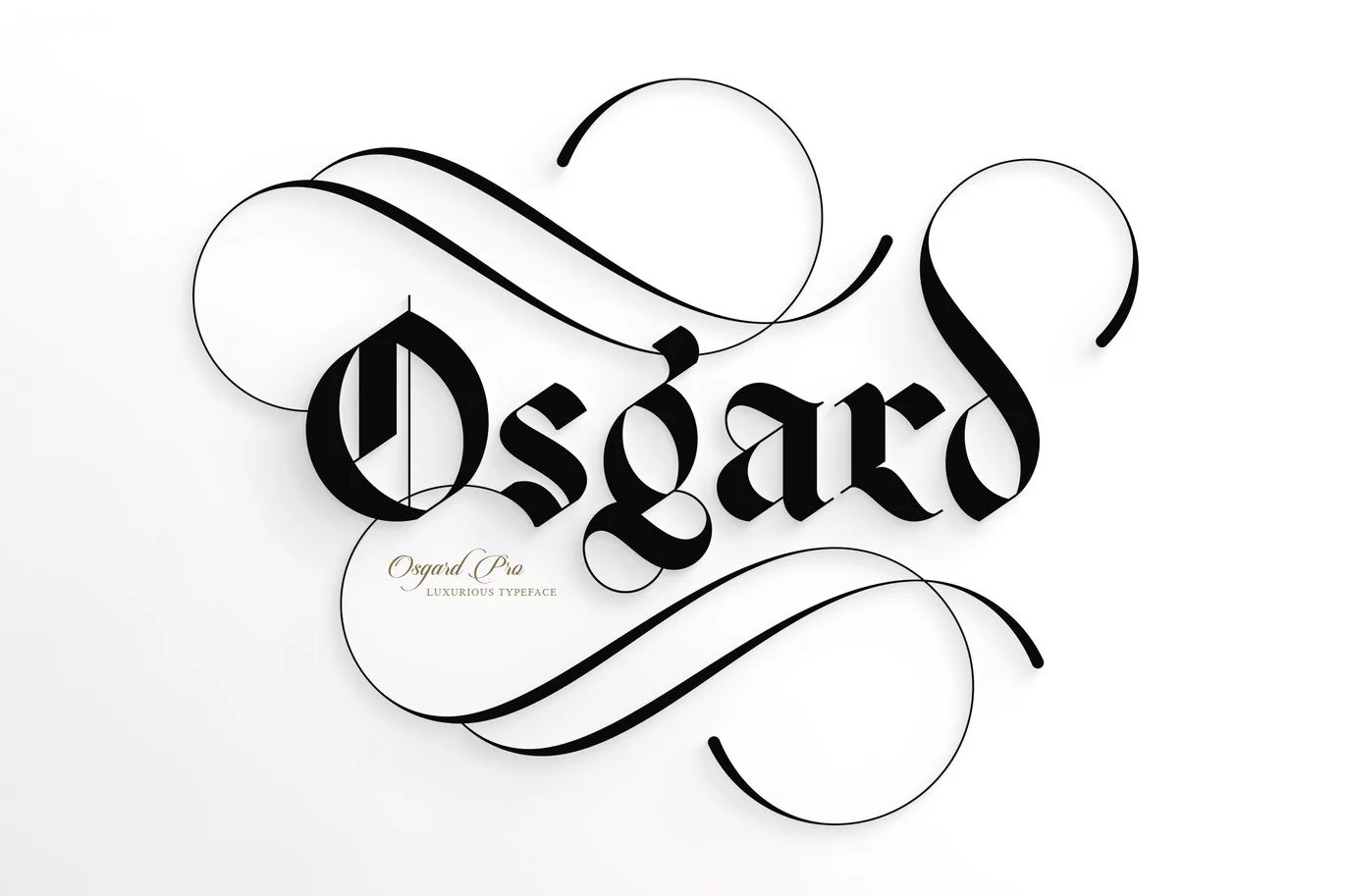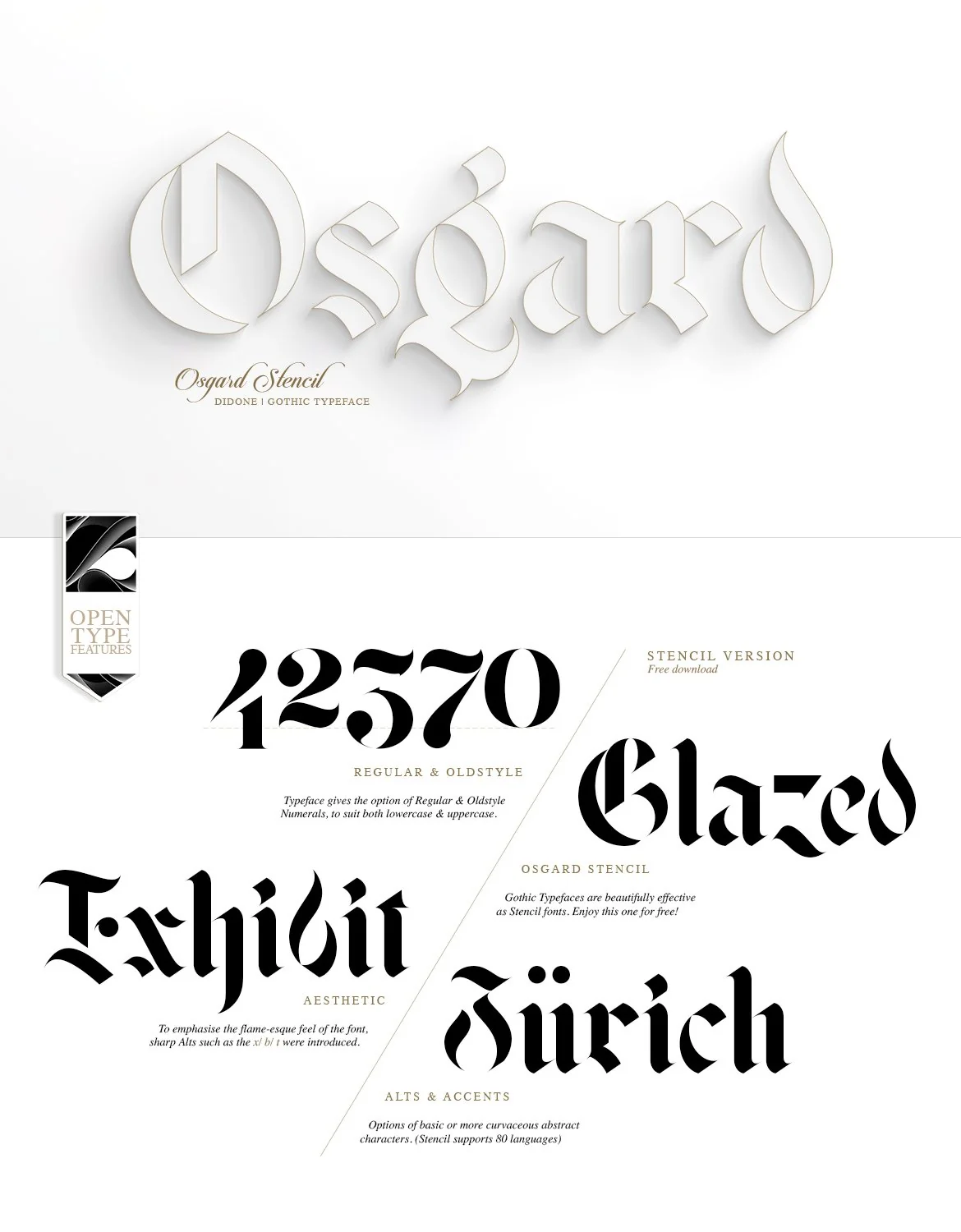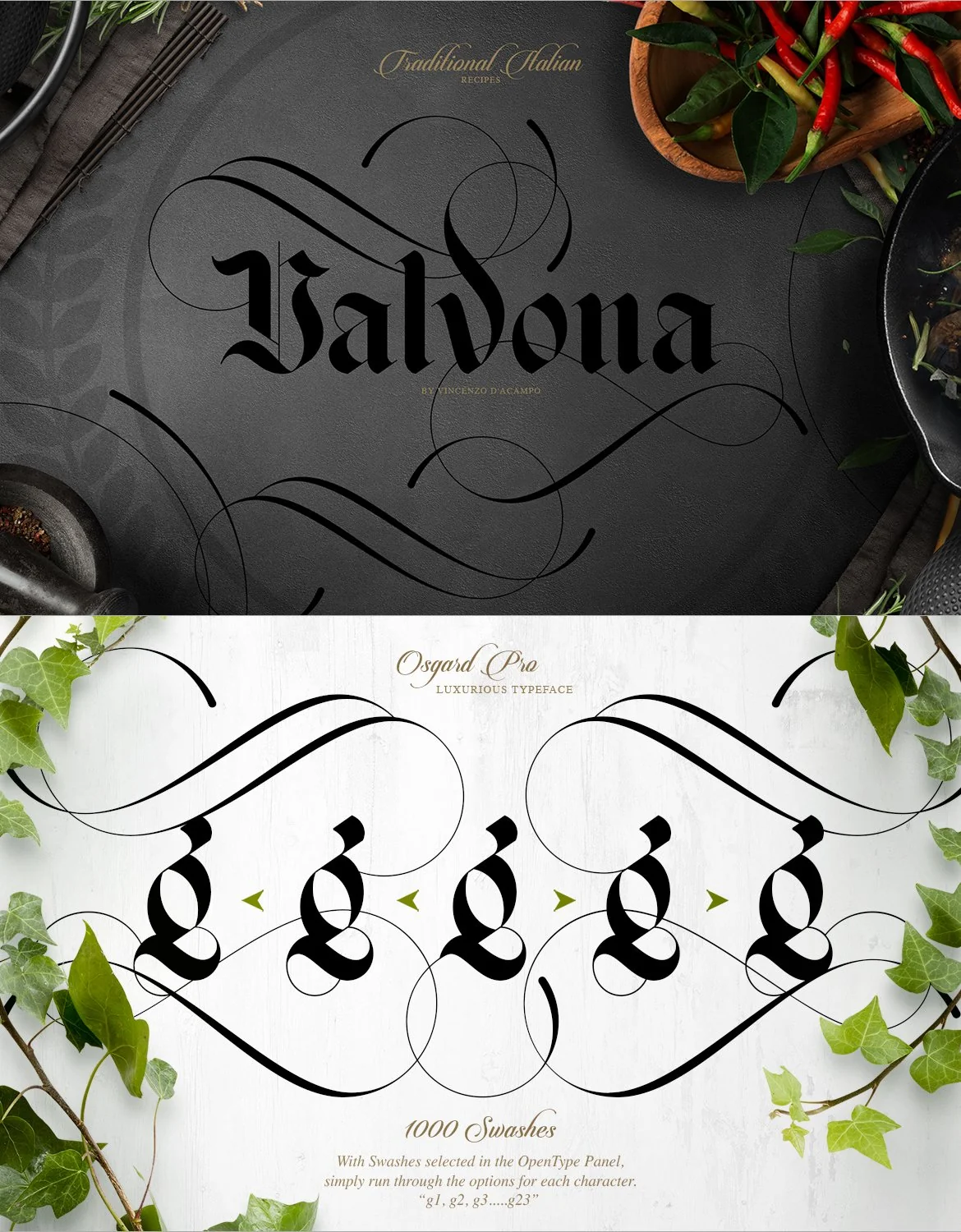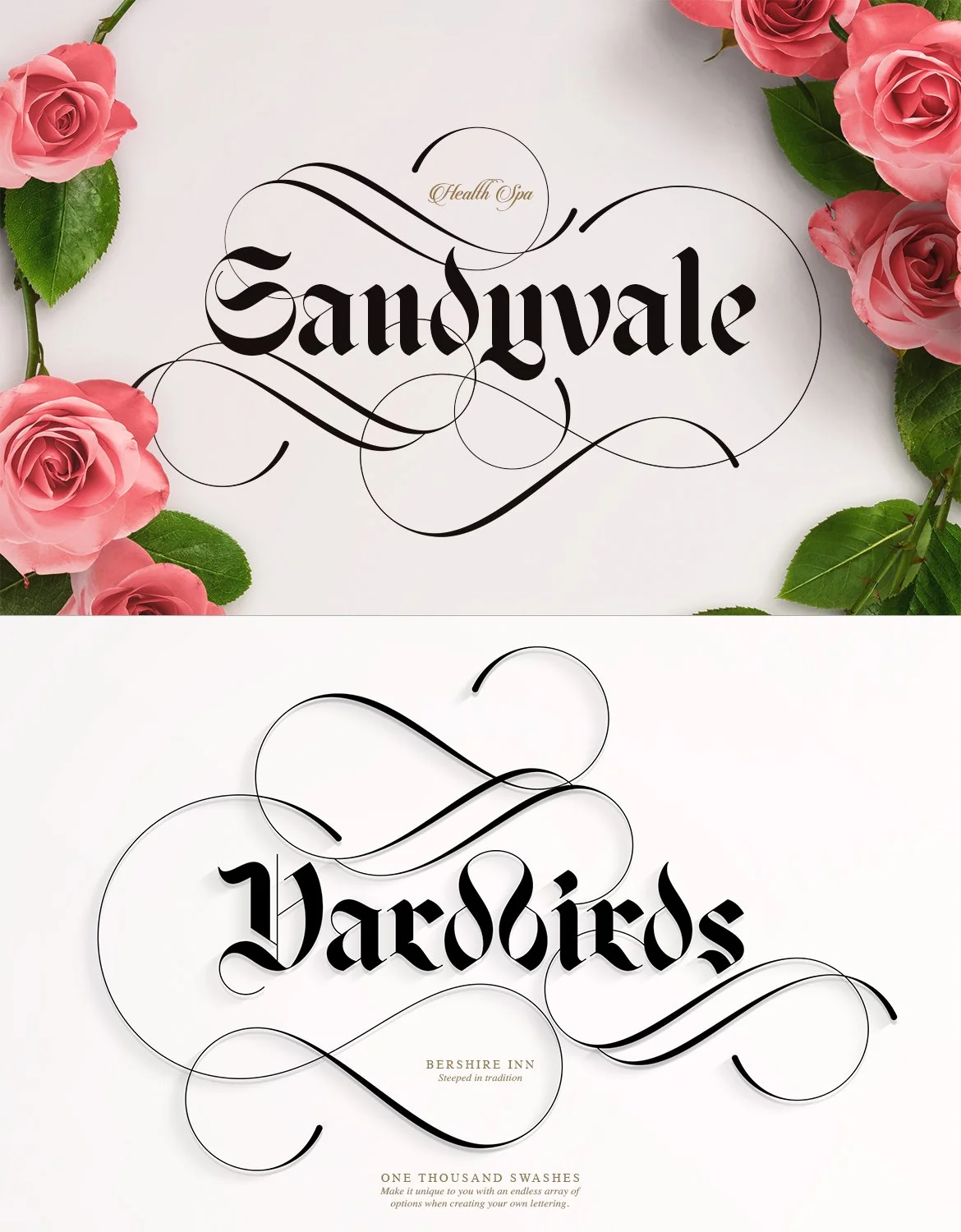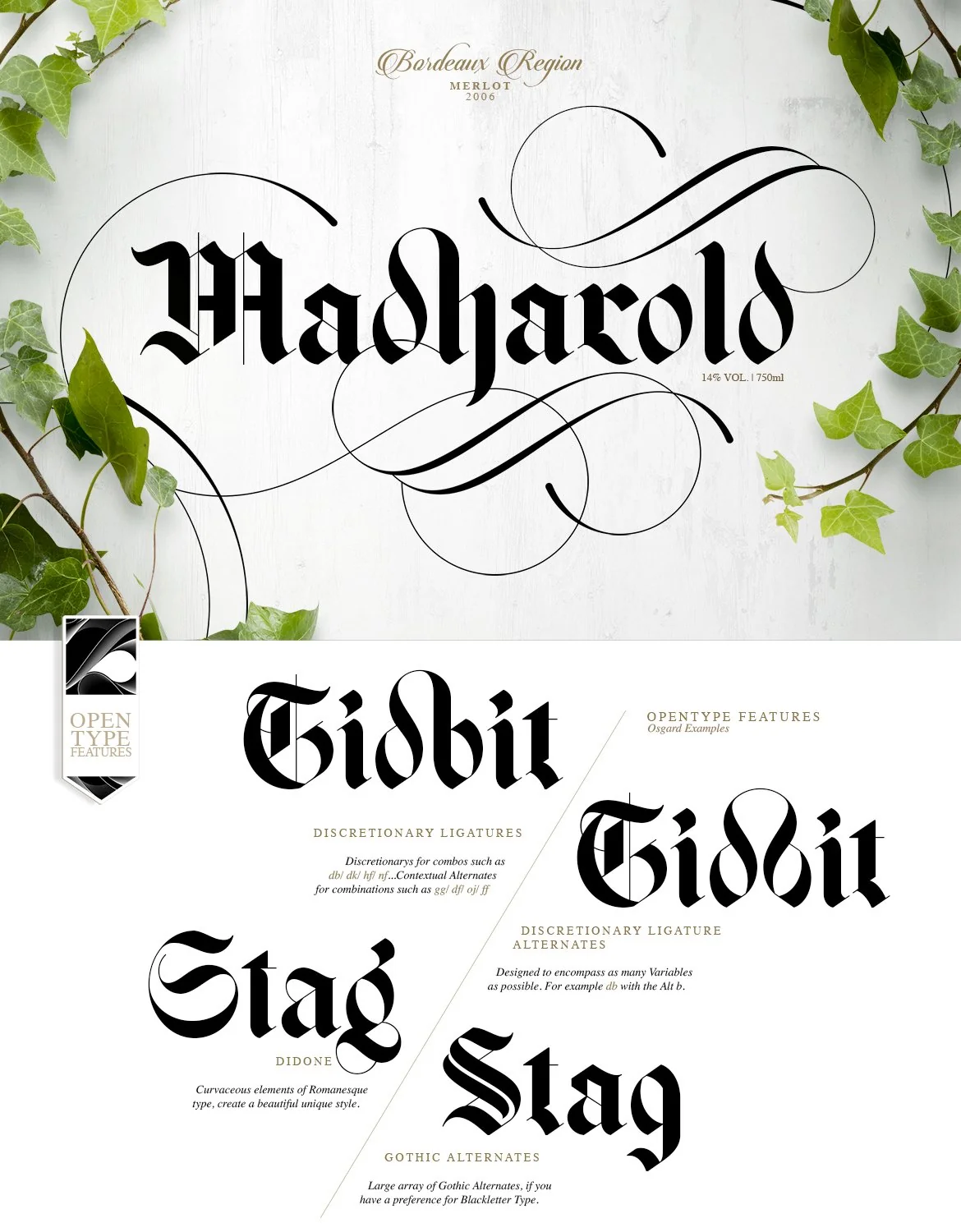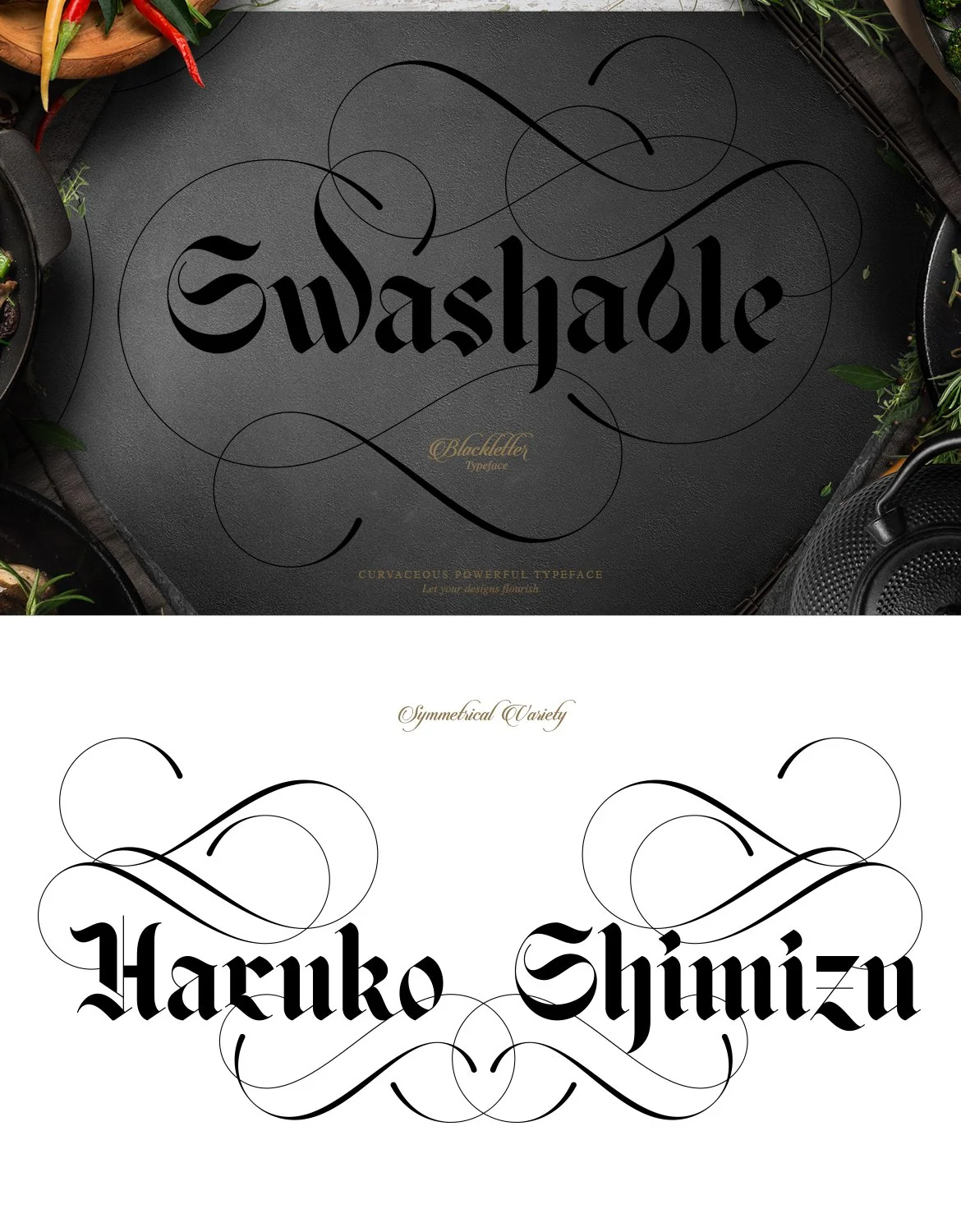
Osgard Pro | Font
Osgard Pro |
Powerful Luxury Typeface
Osgard Pro is a powerful, luxurious Typeface, adopting the fluid curvaceous elements of Romanesque typography and combining them with the Gothic style of Blackletter. Forging the two creates a far softer, more versatile, fashion based typeface; with beautifully distinct qualities. Strong influences came from The Ribble Valley, not far from my location, where J.R.R.Tolkien worked on The Lord of the Rings. Landmarks such as Stonyhurst, the River Shirebourn and the surrounding areas are great places for Medieval/ Fantastical inspiration.
1000 swashes, pre-made Conjunction Ligatures, Stylistic Alternates, Discretionary Ligatures, Contextual Alternates and all the OpenType features you need, make it perfect for applications – logos, fashion, branding and editorials. To make it as user friendly as possible, an additional swash.ttf has also been included, for absolute freedom.